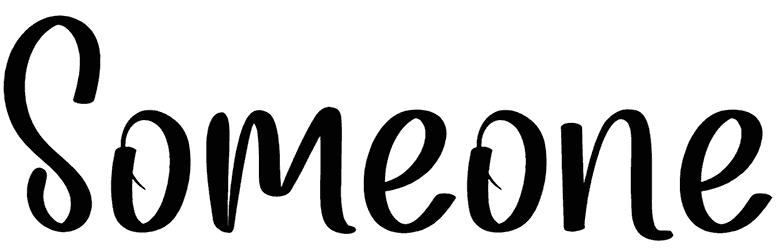
Someone Font
Like a ballet dancer, someone can capture the elegance of the written word and add grace to any design that graces it. This script font allows you to portray your individuality in the age of digital communication and express everything more artistically. Follow this handwritten font’s fluid lines and distinctive style to bring personality to your wedding cards, invitations, and love letters.